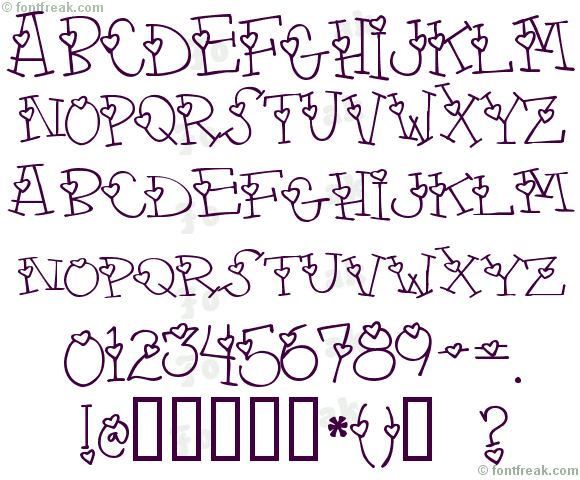
4 my lover
About 4 My Lover
The "4 My Lover" font by Pizzadude is a delightful script typeface that exudes charm and elegance, making it an ideal choice for a variety of creative projects. This freeware font showcases a playful, handwritten style characterized by its smooth curves and flowing lines. The stroke weight is consistent, while the letters exhibit a gentle contrast that adds a touch of sophistication without overwhelming the viewer. The spacing between characters is thoughtfully designed to ensure readability, making it suitable for both headings and body text.
"4 My Lover" is perfect for specific use cases such as wedding invitations, where its romantic flair can enhance the overall aesthetic. Additionally, it works wonderfully for greeting cards, allowing for a personal touch in messages. Small business owners can utilize this font in branding materials or restaurant menus, creating an inviting atmosphere that resonates with customers. Content creators can also leverage its unique style in social media graphics, ensuring their posts stand out and capture attention.
What truly sets "4 My Lover" apart is its ability to convey emotion and warmth through its artistic design. It combines playfulness with elegance, making it a perfect choice for projects that require a personal touch. Whether you’re crafting invitations for a special occasion or designing eye-catching promotional materials, this font is sure to leave a lasting impression.